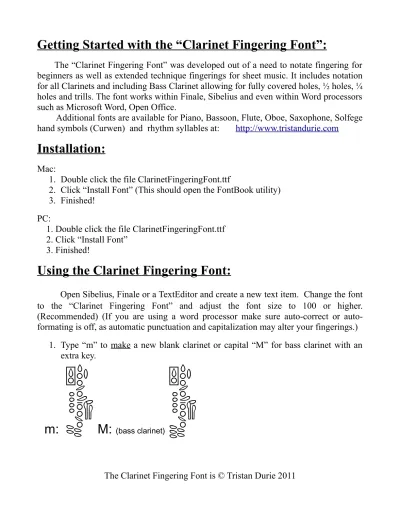
Getting Started with the “Clarinet Fingering Font”:
The “Clarinet Fingering Font” was developed out of a need to notate fingering for beginners as well as extended technique fingerings for sheet music. It includes notation for all Clarinets and including Bass Clarinet allowing for fully covered holes, ½ holes, ¼ holes and trills. The font works within Finale, Sibelius and even within Word processors such as Microsoft Word, Open Office.
Using the Clarinet Fingering Font:
Open Sibelius, Finale or a TextEditor and create a new text item. Change the font to the “Clarinet Fingering Font” and adjust the font size to 100 or higher. (Recommended) (If you are using a word processor make sure correct or auto-formating is off, as automatic punctuation and capitalization may alter your fingerings.)
1. Type “m” to make a new blank clarinet or capital “M” for bass clarinet with an extra key.
2. To view the entire keyboard layout of the font simply press “?” and the following Help screen will appear. Press "Delete" when you are done viewing the help screen.
?
3. Add basic fully covered fingerings by pressing lower case letters indicated in the help chart above. The keyboard layouts mimics a horizontal Clarinet for easy input.
mlpasdfgzxcvbnahjkl;'qqtyui[
4. To add trill fingerings (slashes through keys), hold "Shift" and press the very same corresponding keys from the help chart above.
5. For Half hole fingerings press keys "1-6".
m123456
6. For Quarter hole (or ring) fingerings press "Shift" and "1-6".
!m!@#$%^
7. You can even mix and match all 4 types of fingerings for more advanced notation:
msd34eJxy
8. When you are finished entering a fingering, press the spacebar to create a gap. You can then enter a new blank Clarinet as in step 1 by pressing “m” or “M”.